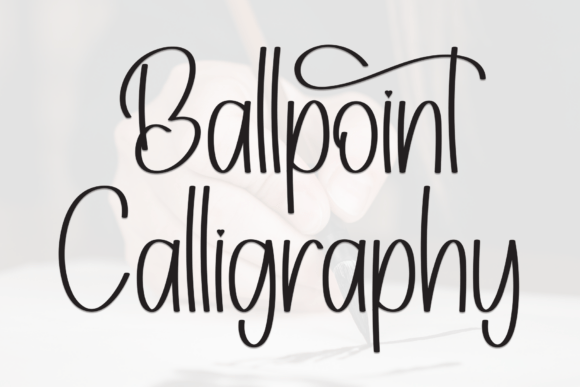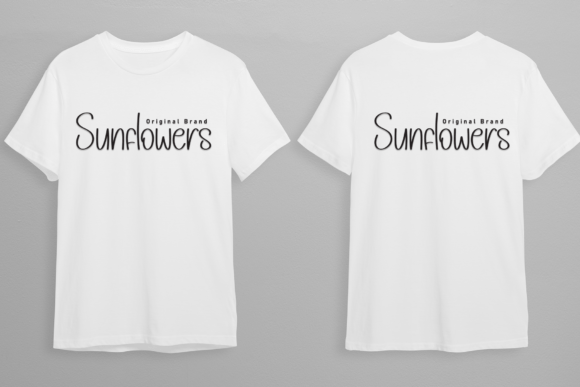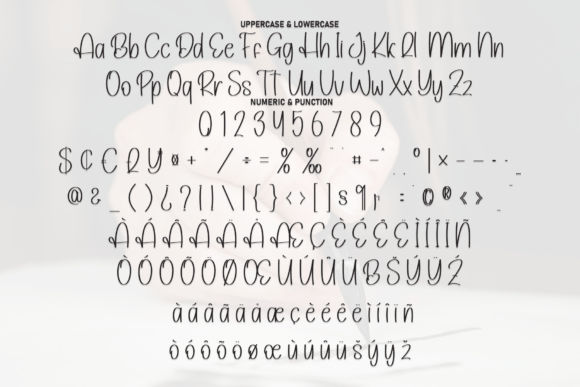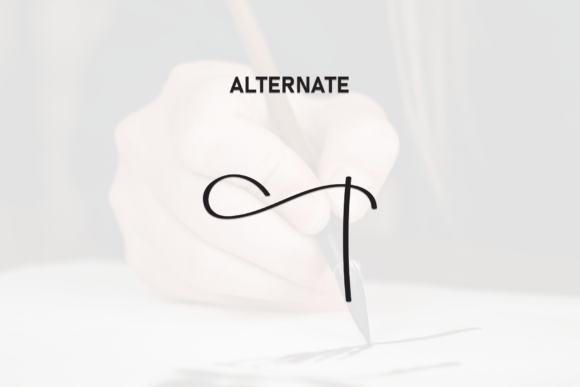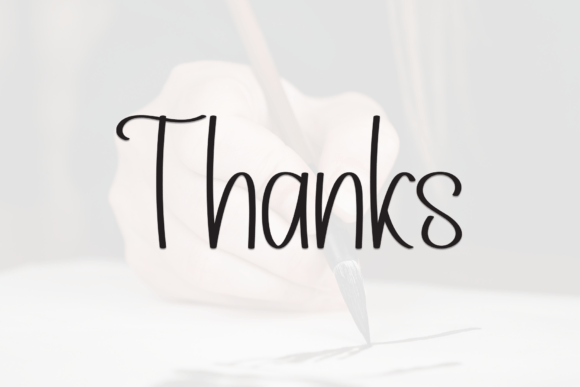
Ballpoint Calligraphy Font
Ballpoint Calligraphy is a stylish script font that exudes elegance and modern charm. Featuring fluid strokes, graceful curves, and carefully balanced letterforms, it captures the beauty of hand-drawn calligraphy with a contemporary edge. Ideal for logos, invitations, packaging, and social media graphics, it adds a touch of sophistication and personality to any design. With its natural flow and refined details, this font delivers both visual appeal and versatility